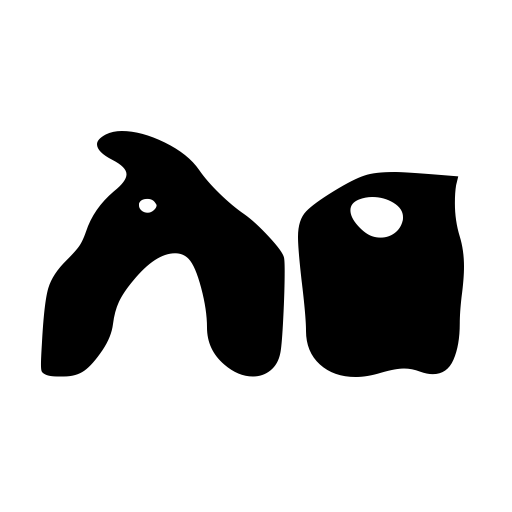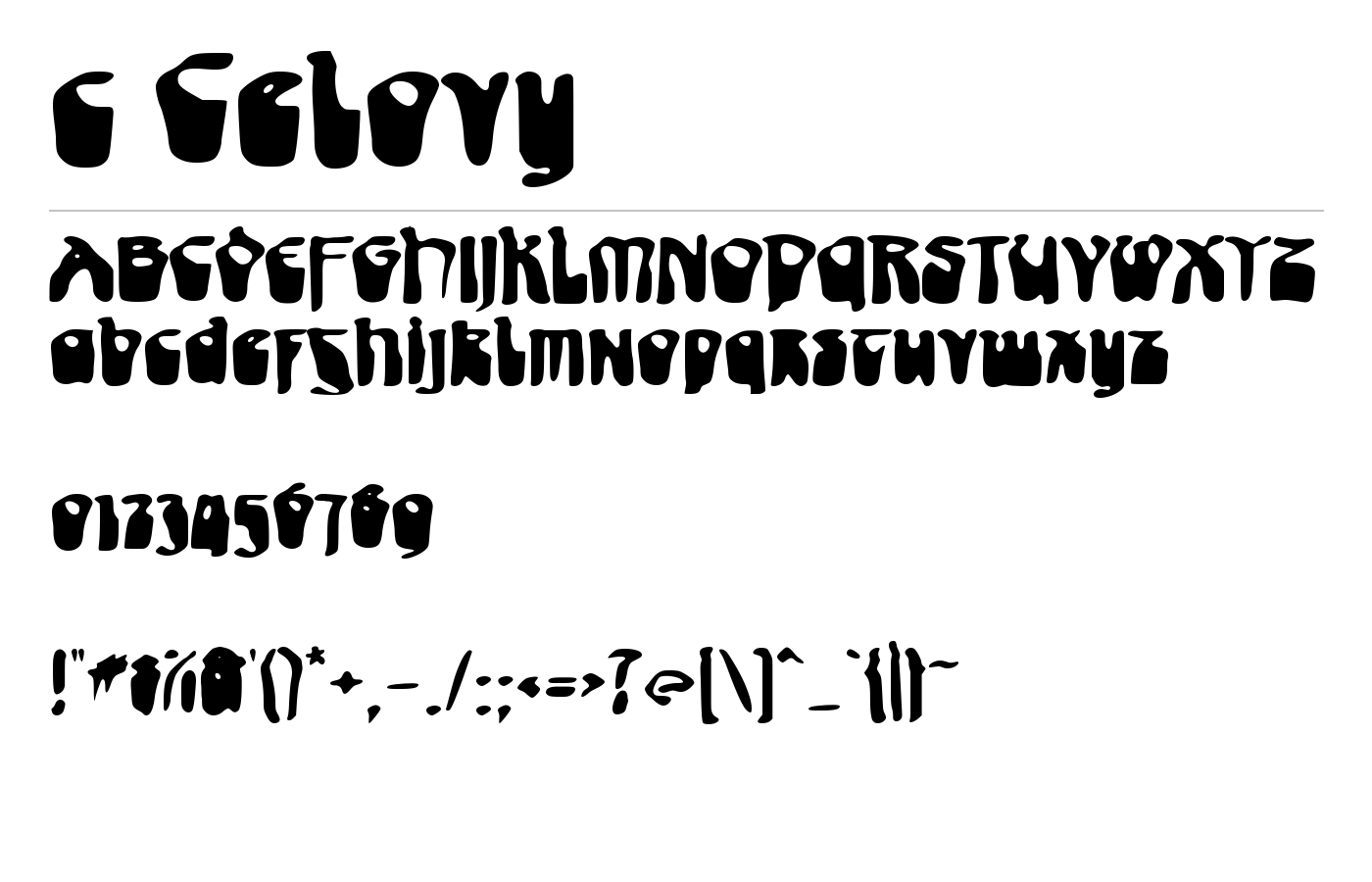
Celovy is a bold, playful display font with thick, irregular strokes that give it a quirky, hand-crafted feel. Its rounded, chunky letterforms and unconventional shapes create a fun, whimsical personality perfect for eye-catching headlines, posters, or branding that aims to convey creativity and a lighthearted vibe. This font works best in designs where a unique, informal style is desired, rather than for body text or formal uses.
c Celovy Font
About c Celovy Font